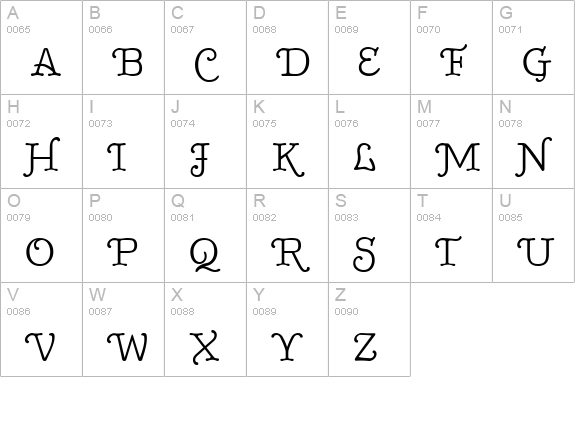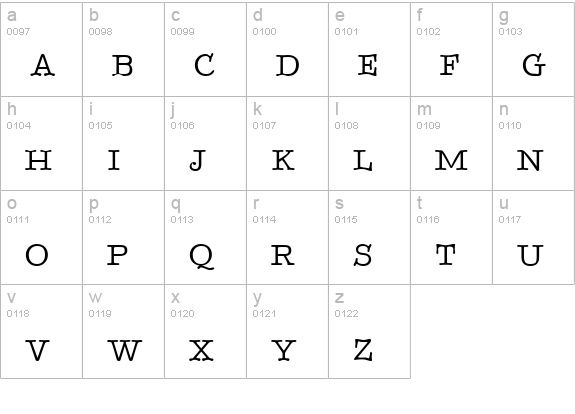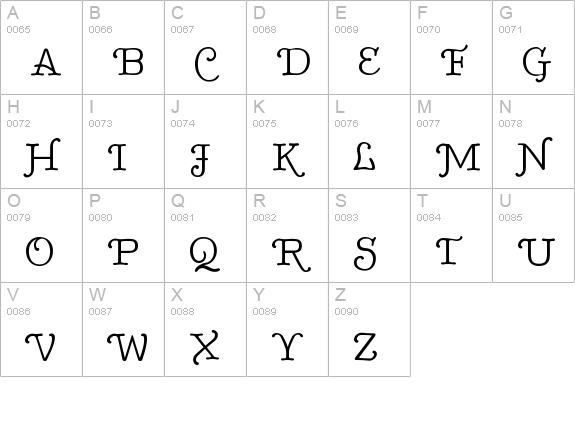
BetterTypeRiteSpec Font Details
BetterTypeRiteSpec is a modern and versatile font that combines sleek sophistication with a touch of whimsy. This font is perfect for a wide range of projects, from professional documents to creative designs. Its clean lines and balanced proportions make it easy to read while still capturing attention with its unique style. What sets BetterTypeRiteSpec apart is its versatility - it can be used for everything from headlines to body text, giving your project a cohesive and polished look. The font's wide range of weights and styles allows for easy customization to suit your specific needs. Best of all, BetterTypeRiteSpec is available for free download at FontsMarket.com. This means you can start using this stylish and functional font in your projects right away, without any additional cost. Don't miss out on the opportunity to elevate your designs with BetterTypeRiteSpec - download it today and see the difference it can make!